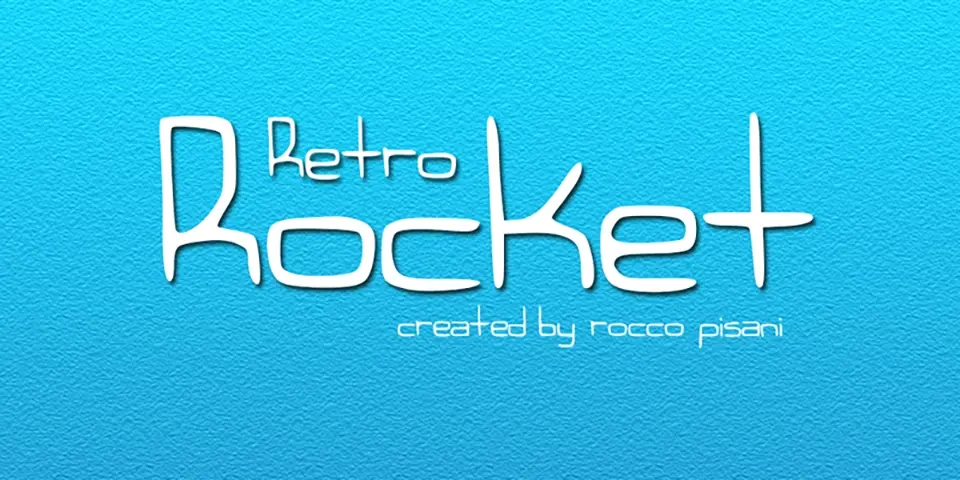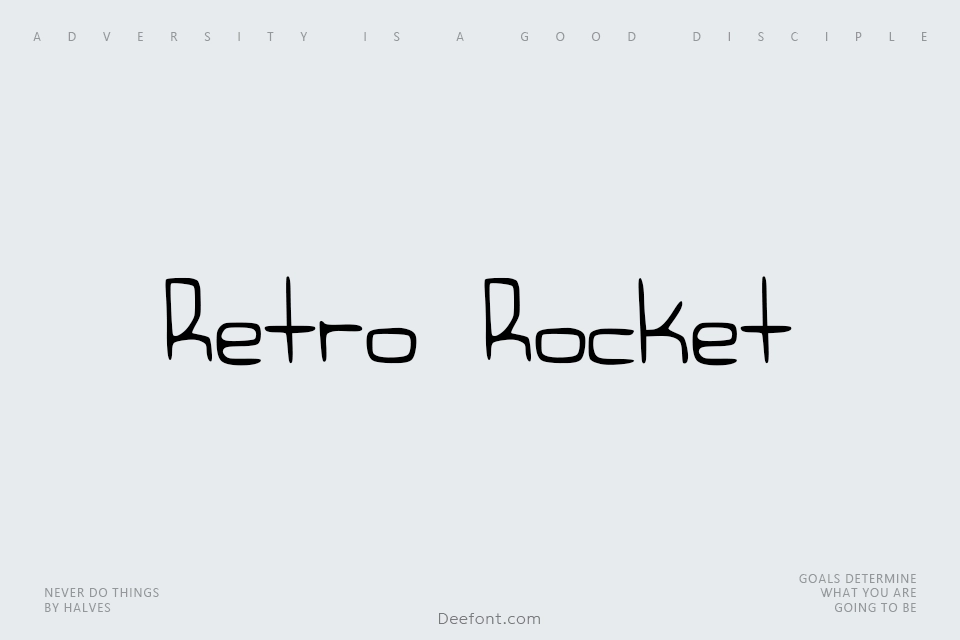
Retro Rocket Font
Retro Rocket is a vibrant and expressive hand-printed script font that captures the nostalgic charm of retro design. With its playful strokes and vintage aesthetic, this typeface is perfect for creating eye-catching logos, posters, album covers, and promotional materials that evoke a sense of 1970s styling and retro appeal. The font's unique character makes it ideal for designers seeking authentic handcrafted typography with personality and flair.